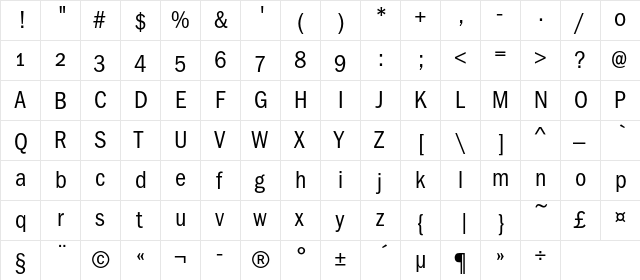
FranklinGothicBookCondOSC Regular
Design Context for FranklinGothicBookCondOSC Typeface
FranklinGothicBookCondOSC has the quiet confidence of well-executed sans-serif typography: versatile, unobtrusive, and dependable at any size. Its narrow stance lets it pack a punch even in space-constrained designs.
Font Pairing: Works well alongside a characterful serif or display font that can carry the expressive load while FranklinGothicBookCondOSC handles the functional copy.
Pro Tip: Try FranklinGothicBookCondOSC in all-caps with moderate tracking for navigation and label copy — it performs well in systematic UI contexts.